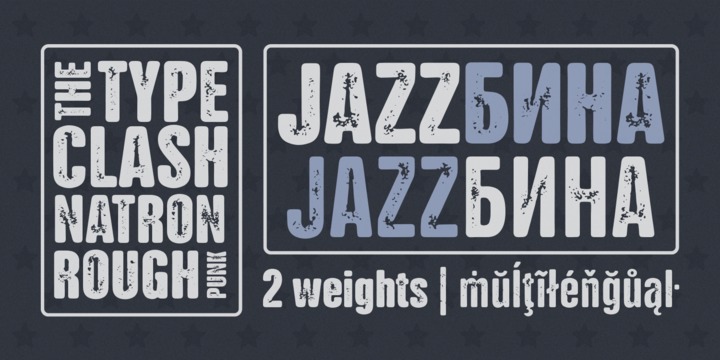
NATRON Rough Font
NATRON Rough Font is perfect for industrial branding, gritty urban signage, weathered poster designs, rugged outdoor equipment labels, vintage machinery graphics, distressed marketing materials, rough construction company logos, and authentic worn typography applications.
NATRON Rough Font is exciting because it captures authentic weathered character with distressed letterforms and rough texture details that evoke industrial strength and time-worn durability. Its rugged personality creates immediate associations with toughness and authentic wear that resonates with audiences seeking genuine industrial aesthetics and weathered authenticity.
NATRON Rough Font family includes regular weight with distressed variations and weathered alternates, providing designers with comprehensive options for creating authentic rough typography solutions that project industrial character and worn durability.
NATRON Rough Font Free Download delivers premium distressed typography that embodies the essence of industrial wear and authentic weathering. This distinctive typeface demonstrates exceptional attention to rough detail through its weathered letterforms and distressed character construction that creates genuine industrial appeal without sacrificing readability functionality. The font's rugged personality makes it particularly suitable for construction companies, industrial manufacturers, outdoor equipment brands, and weathered aesthetic ventures seeking to establish authentic industrial atmosphere that connects with audiences appreciating genuine wear and durability.
Creative professionals consistently choose NATRON Rough Font for projects requiring industrial authenticity and weathered visual impact. Its distressed character works magnificently in industrial venues, construction sites, outdoor equipment branding, and rugged product applications where authentic wear and industrial personality drive brand credibility. The font's rough nature creates memorable brand experiences that communicate durability and industrial heritage.
The NATRON Rough Font download package includes distressed variations, weathered alternates, and industrial symbols that enhance its rough authenticity and design versatility. This comprehensive collection ensures professional results in industrial design projects requiring authentic weathered typography. The font performs exceptionally in both large format applications and detailed industrial work where its rough character adds significant weathered value and industrial distinction.
Design teams appreciate NATRON Rough Font's ability to communicate industrial authenticity and weathered sophistication in competitive industrial markets. Its distressed styling transcends clean typography approaches while maintaining the ruggedness required for industrial positioning, making it an essential tool for organizations seeking to establish genuine connections through superior weathered typography and exceptional industrial communication.